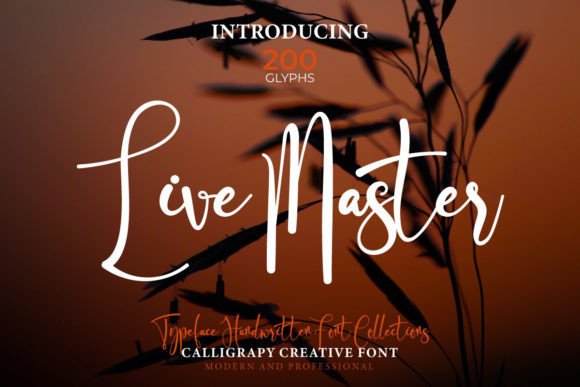
Welcome to the realm of Live Master, a script font family that exudes elegance and charm. Created by Arief Indra Pratama, this font collection is a masterpiece of artistry, specifically tailored to elevate fashion brands and leave an unforgettable impression.
Live Master captivates with its fluid lines and delicate curves, reminiscent of a skilled calligrapher's hand. Each character dances across the page, inviting you to explore the world of high fashion, where beauty and sophistication reign supreme. Whether you're crafting wall displays, wedding invitations, or social media posts, Live Master adds a touch of luxury and refinement.
Step into the spotlight with Live Master's magnetic pull in logo design and advertising. Its presence commands attention, drawing eyes to your brand's message. From product packaging to product designs, Live Master transforms ordinary into extraordinary, creating an aura of exclusivity and desire.
Dive into Live Master's versatility and let your creativity flow. Design labels that whisper sophistication, enhance photographs with a touch of elegance, and make your watermarks truly unforgettable. Wedding invitations and stationery come alive with Live Master's enchanting touch, transforming them into heirlooms to be treasured for generations.
With Live Master at your fingertips, every project becomes a work of art. Its impressive typography elevates your designs, leaving a lasting impression on your audience. Embrace the allure of Live Master and unleash your inner fashionista.